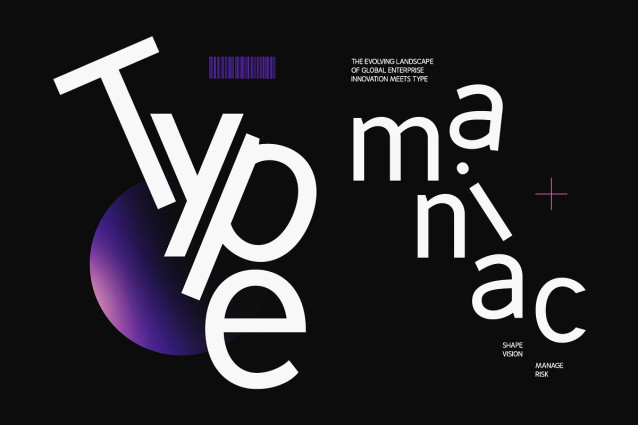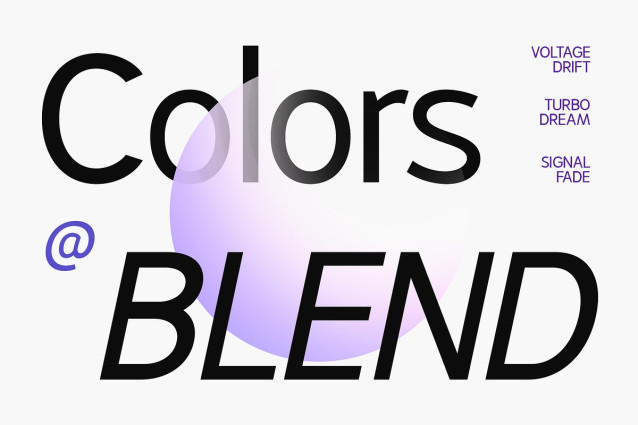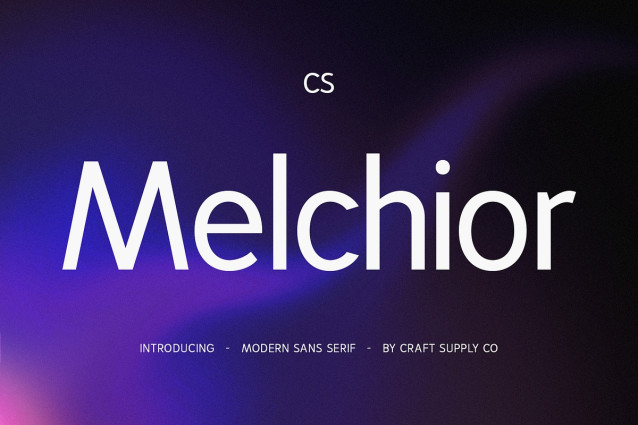
CS Melchior Font is a modern sans serif font that showcases a clean, contemporary, and geometric design. Its sharp lines, precise angles, and balanced curves create a harmonious and structured appearance, offering a visually appealing look that combines minimalism with sophistication. This design approach makes it perfect for projects that require clarity, elegance, and a professional presence.
Highly Readable and Proportional Designed with careful attention to proportions and spacing, CS Melchior ensures excellent readability across all sizes and formats. Each character is thoughtfully crafted to maintain visual consistency, making the font ideal for both short headlines and extended text. Its neat and precise forms convey confidence and reliability in every word.
Perfect for Corporate and Modern Branding CS Melchior excels in corporate design, branding, websites, and professional communication materials. Its clean, geometric aesthetic communicates modernity, professionalism, and trustworthiness, while its understated elegance allows it to complement a wide variety of visual identities. Whether used in formal reports, marketing materials, or digital interfaces, it projects a polished and refined impression.
Versatile for Efficient and Elegant Visuals This font’s versatility allows it to adapt seamlessly to diverse design applications. From editorial layouts and user interfaces to signage, packaging, and corporate identities, CS Melchior delivers a consistent, modern, and sophisticated look.